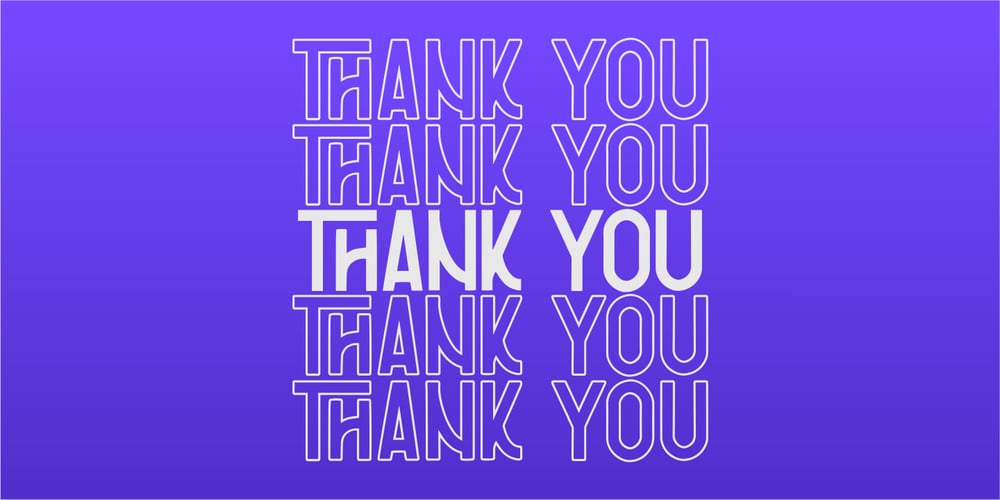
Nootdorp Font Family was designed by Risman Ginarwan and published by Garisman Studio. Nootdorp contains 3 styles and family package options. Welcome to Nootdorp, a Sans Serif! Inspired by modern sans serifs, the powerful typeface Nootdorp is born. The name comes from a place in Germany: Nootdorp. This font is versatile for branding, labels, packaging, logotypes, websites, headers, headlines, magazines, and more. Nootdorp comes with 3 styles: Regular, Italic, and Outline. So, very good for pairing the fonts! Features and advantages: – Simple Installation – Opentype Ligatures – PUA Encoded – Support for MAC and PC. Also for Adobe Illustrator, Corel Draw, Indesign or Photoshop – 23 Language Support: Afrikaans Albanian Catalan Croatian Czech Danish Dutch English Estonian Finnish French German Hungarian Icelandic Italian Norwegian Polish Portuguese Slovak Slovenian Spanisch Swedish Zulu